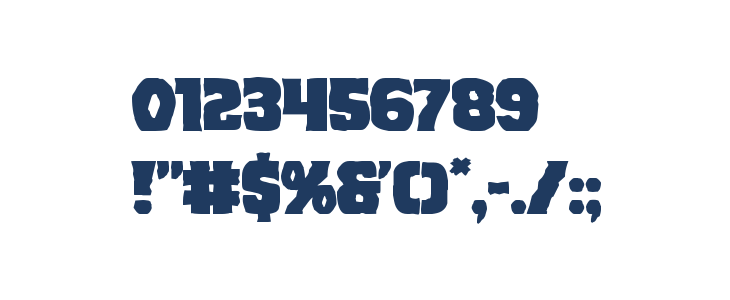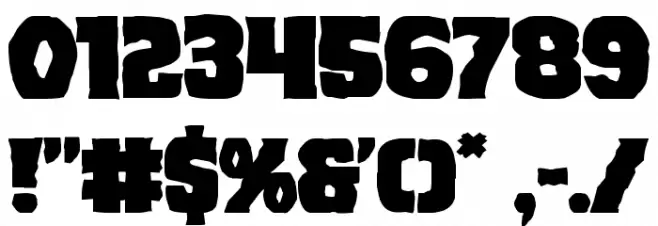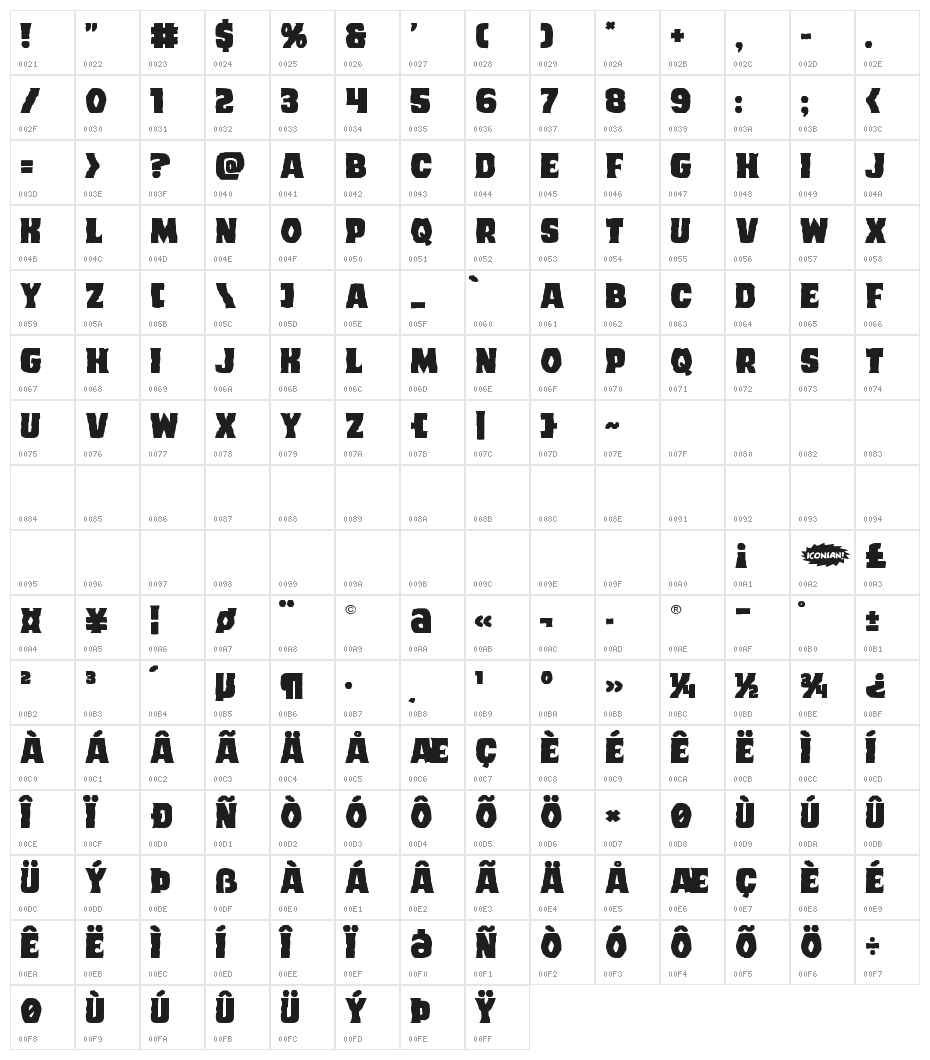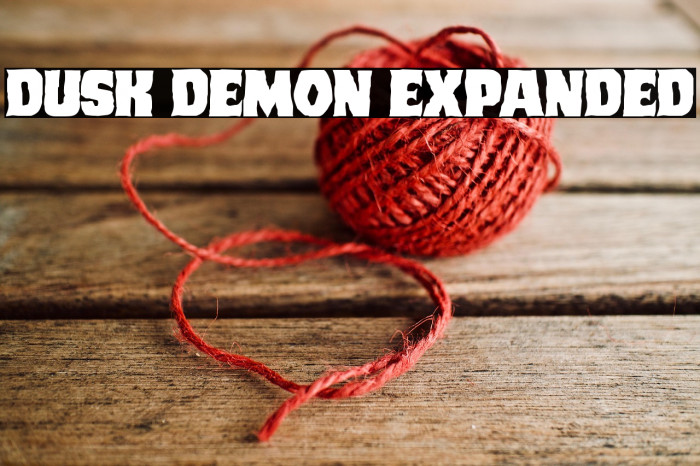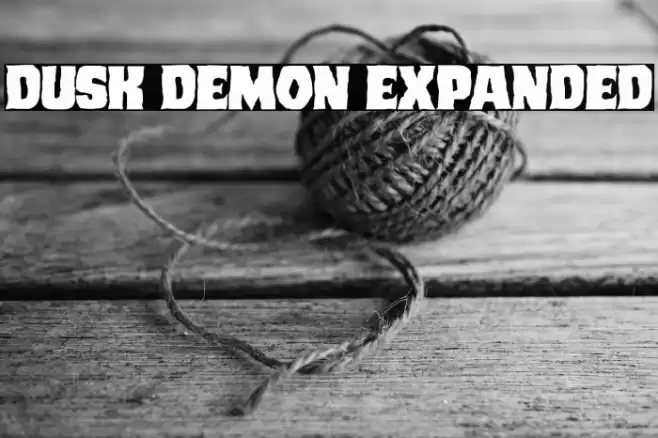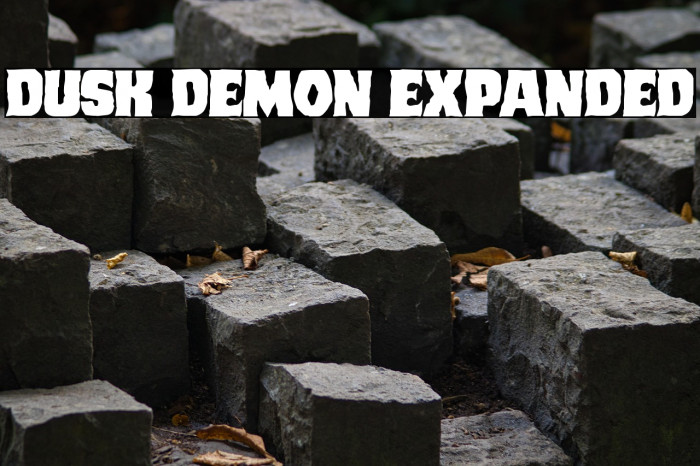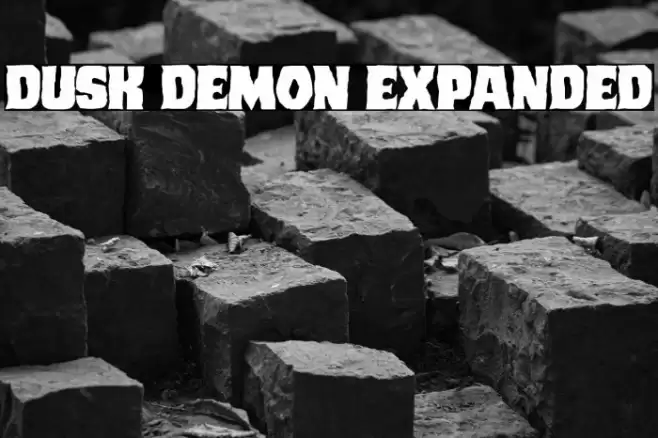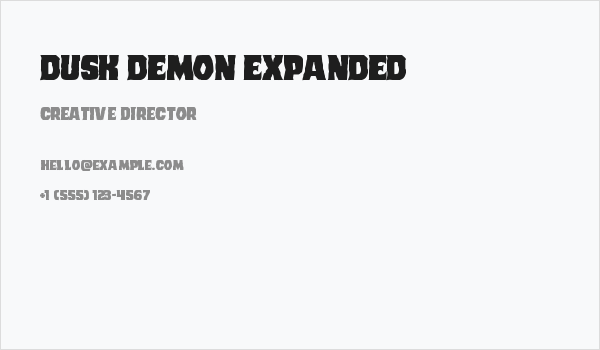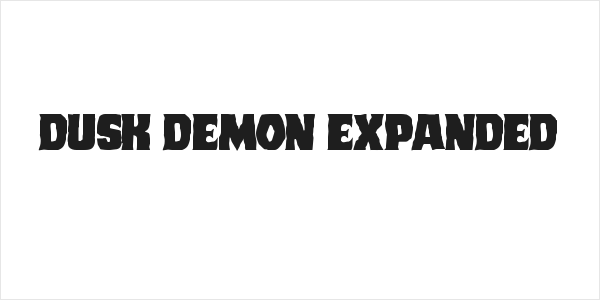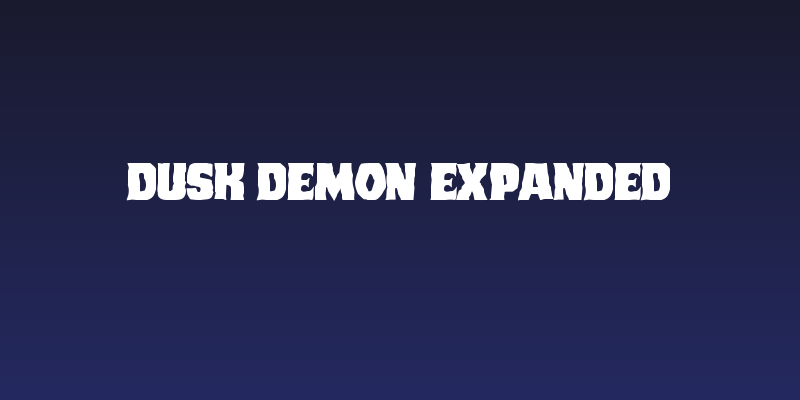
Dusk Demon Expanded Font
Dusk Demon Expanded Description
This font features a bold and dramatic style with thick, uneven strokes that give it a rugged and dynamic appearance. The characters are heavily stylized, with irregular edges that create a sense of movement and energy. The uppercase and lowercase letters maintain a consistent weight, contributing to a cohesive look. The numbers and special characters follow the same design principles, ensuring uniformity across all elements. This font's unique aesthetic makes it stand out, ideal for projects that require a strong visual impact.